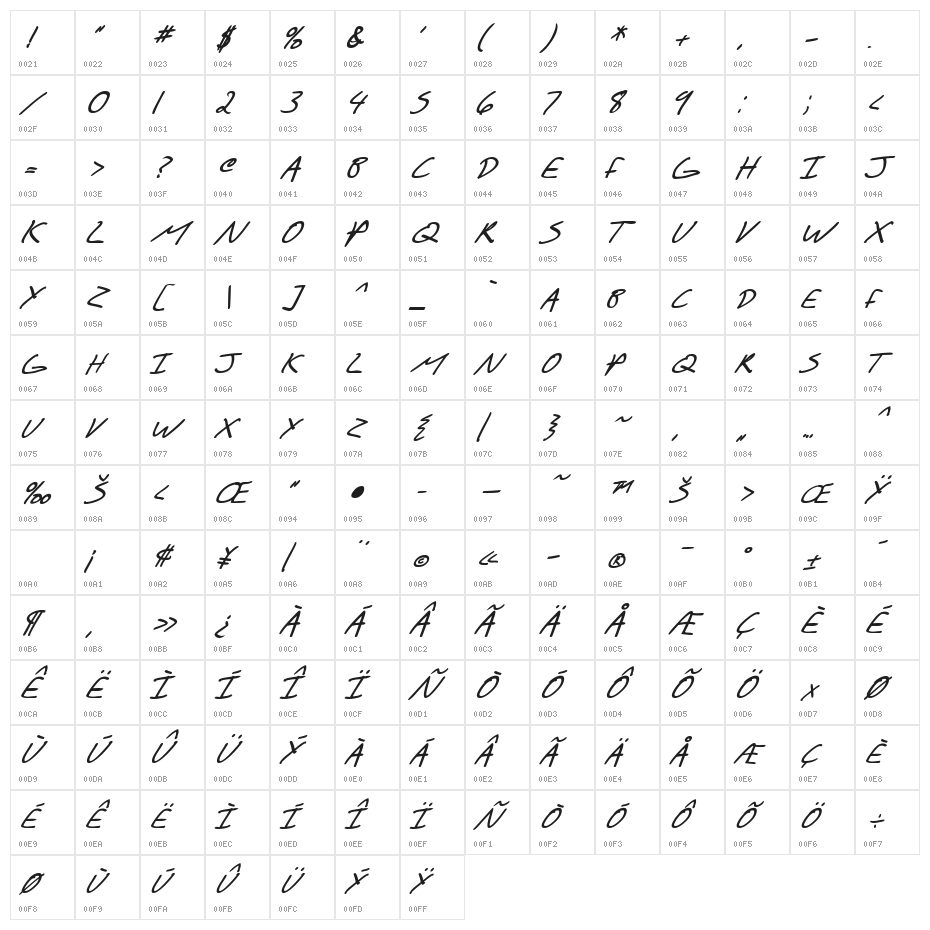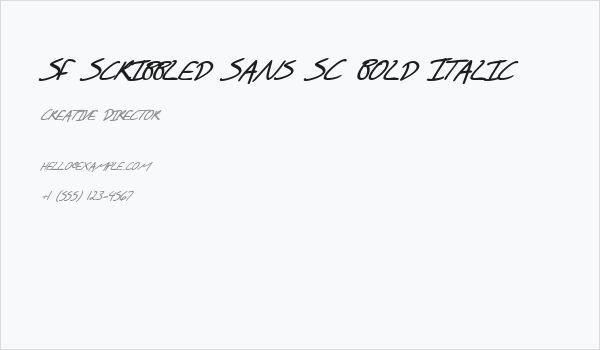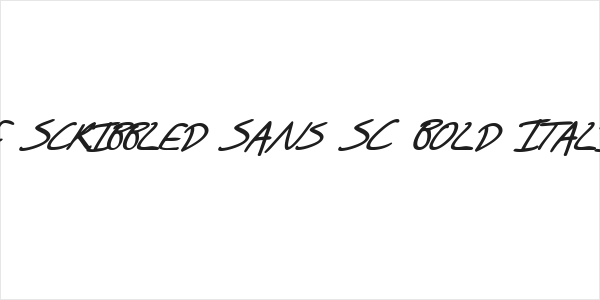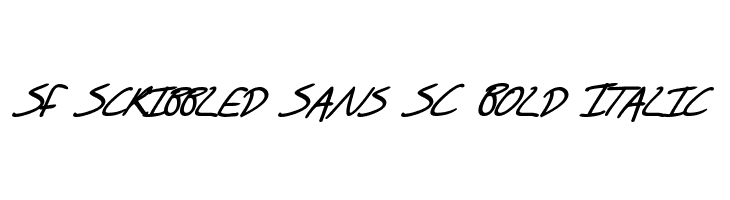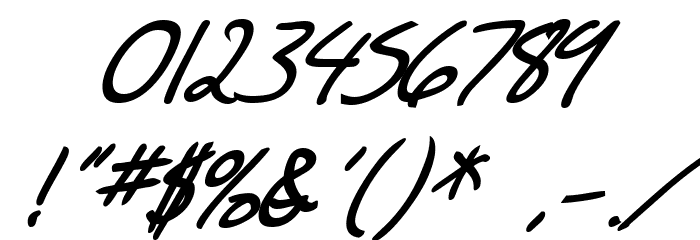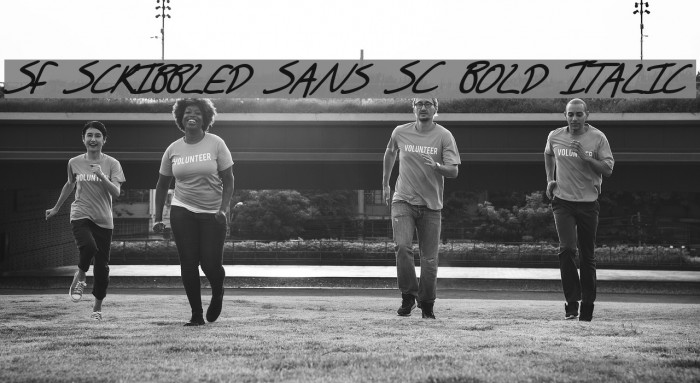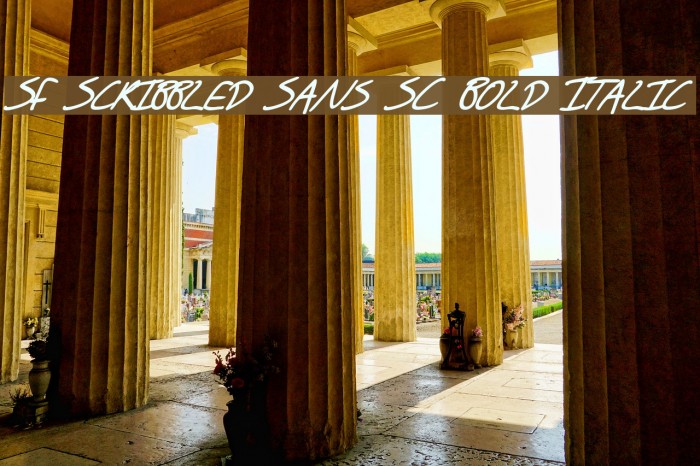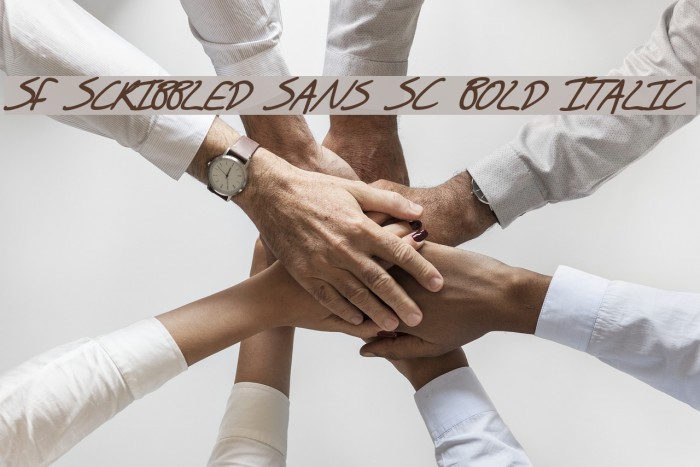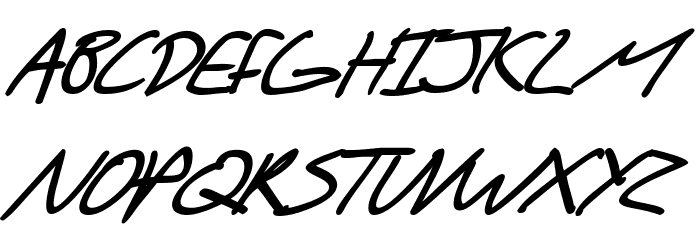
SF Scribbled Sans SC Bold Italic Font
| Anwendungsfall | Logos, Headlines, Posters |
| Vorgeschlagene Projekte | Ideal for creative projects such as greeting cards, invitations, posters, and branding materials that require a personal and energetic touch. |